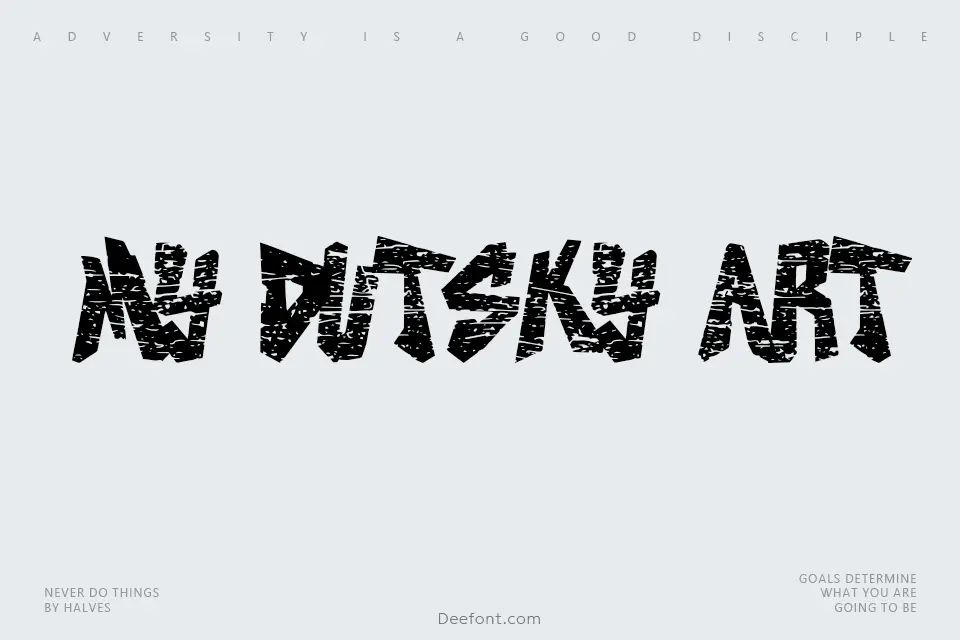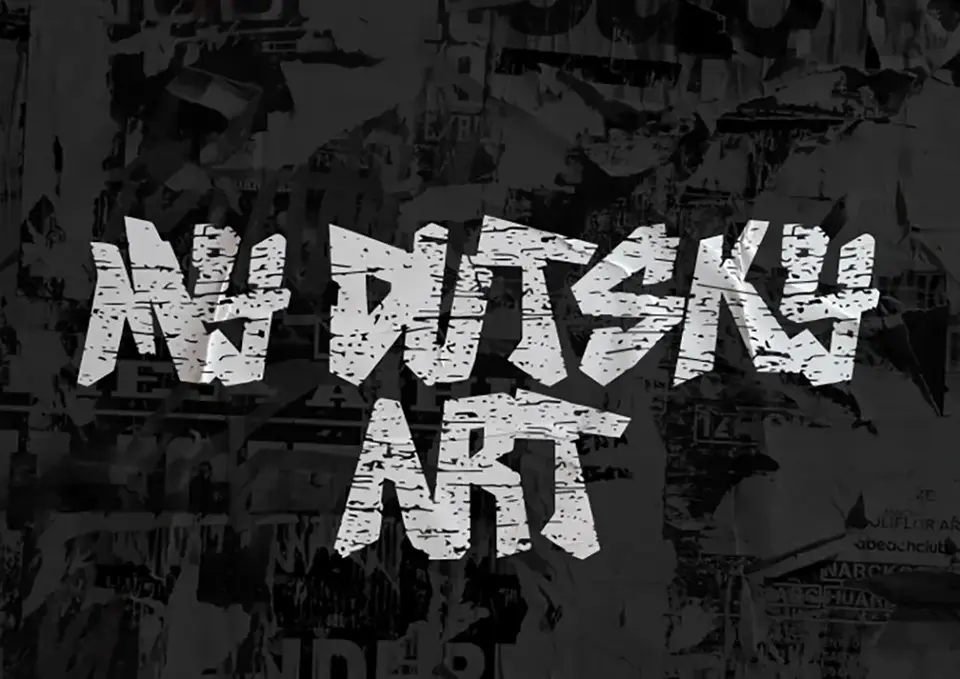
My Dutsky Art Font
My Dutsky Art is a striking graffiti-inspired font that captures the raw, energetic essence of street art with bold, jagged edges and distressed textures. Each character features unique styling with dynamic, angular forms that convey spontaneous creativity and rebellious spirit. The font’s chaotic yet structured appearance makes it perfect for designs requiring urban culture aesthetics, including posters, flyers, logos, album covers, and edgy branding projects that demand visual impact and artistic statement.